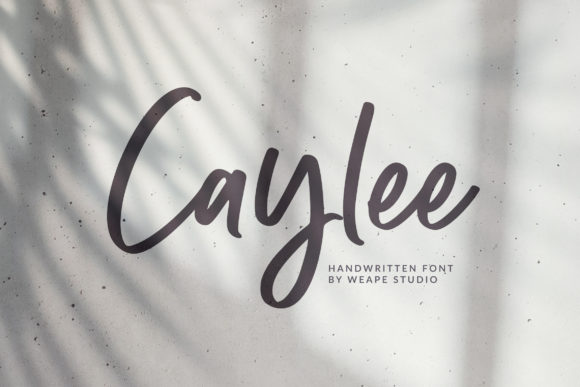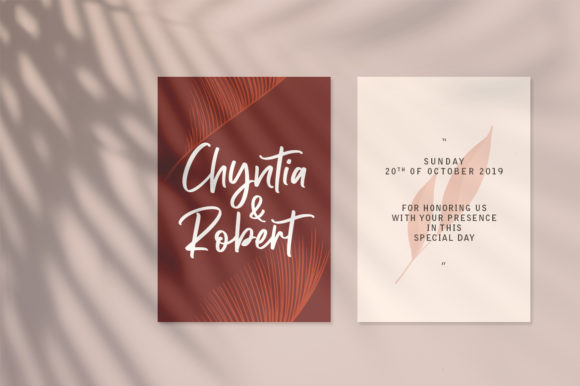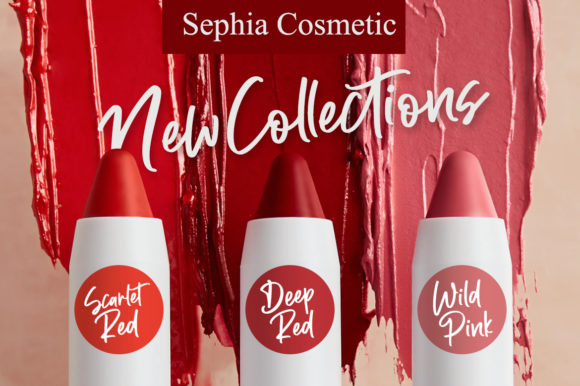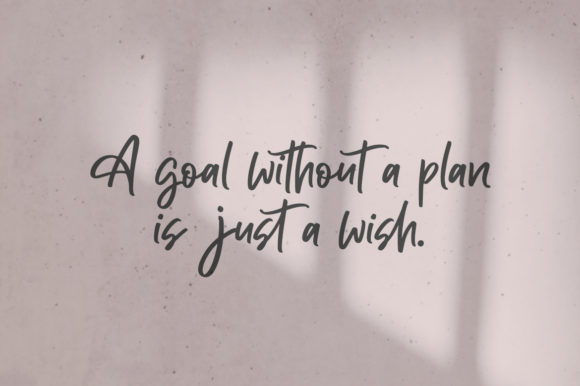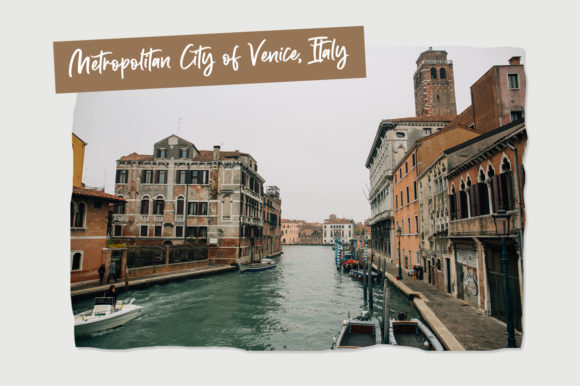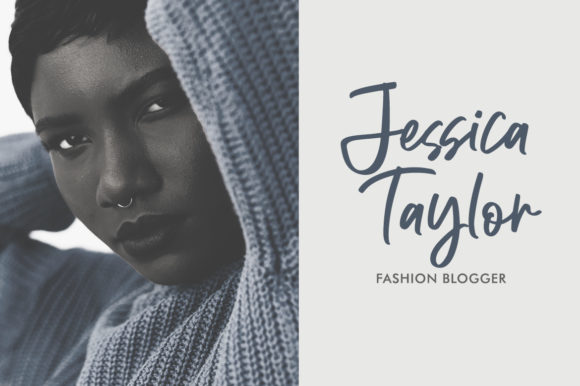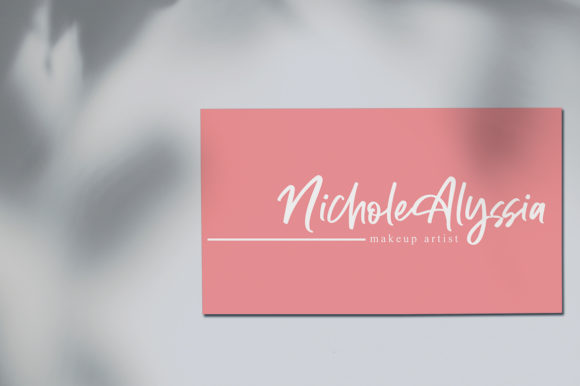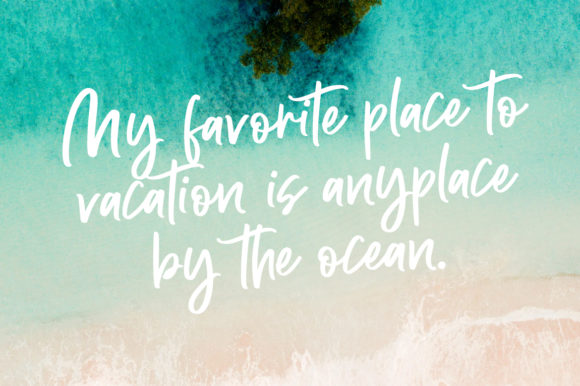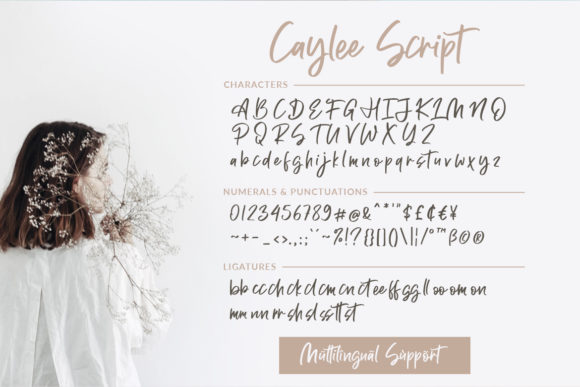
Caylee Script Font
Caylee is a sweet, charming and cool handwritten font that will turn any design project into a true standout. Fall in love with its contemporary charm!